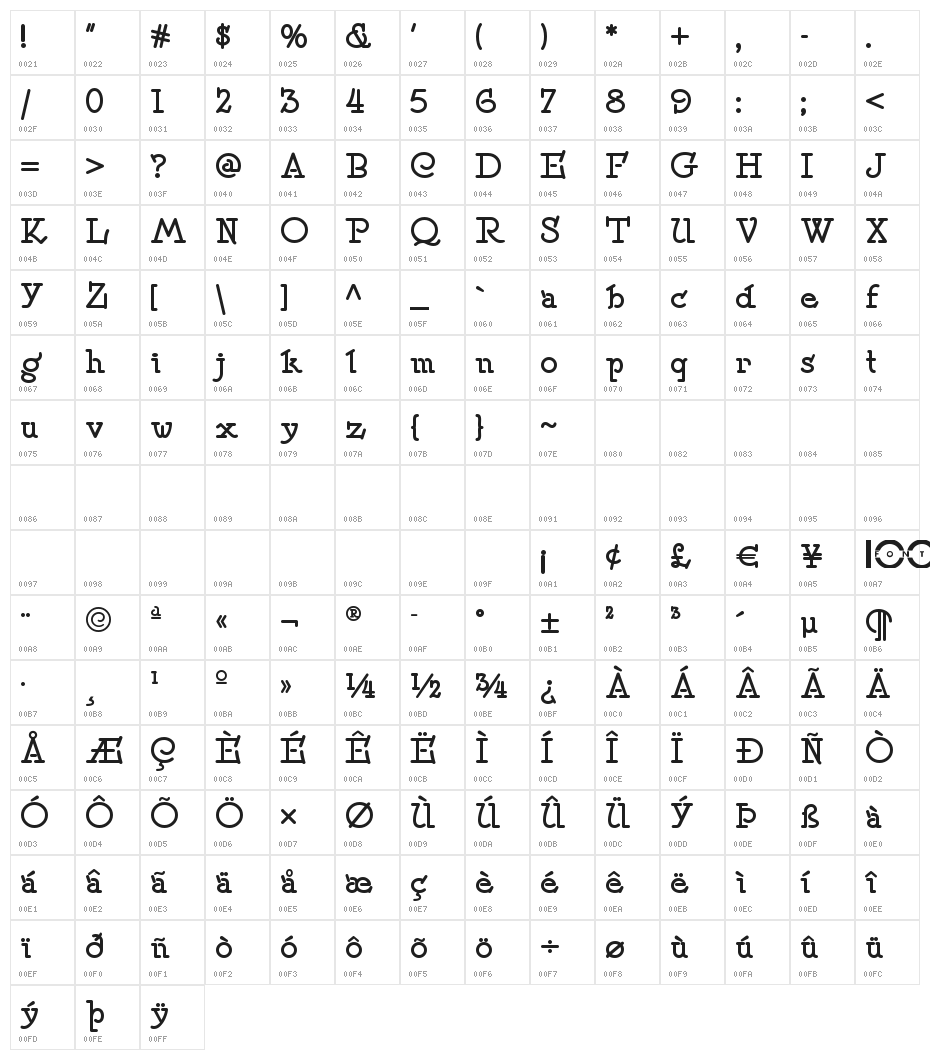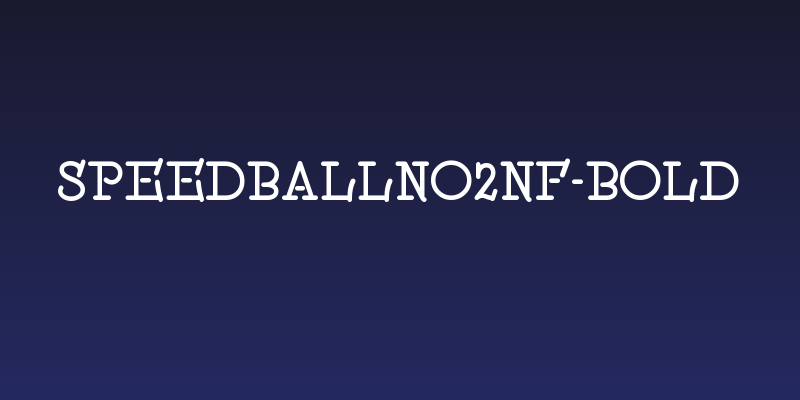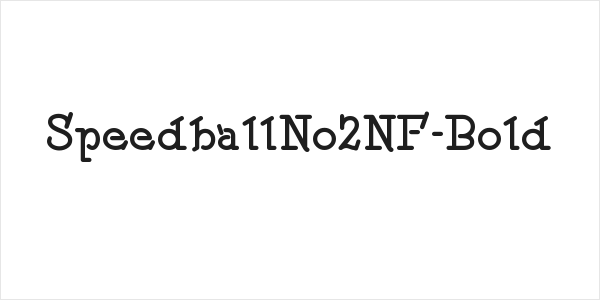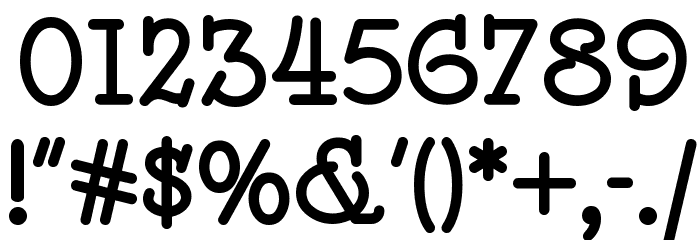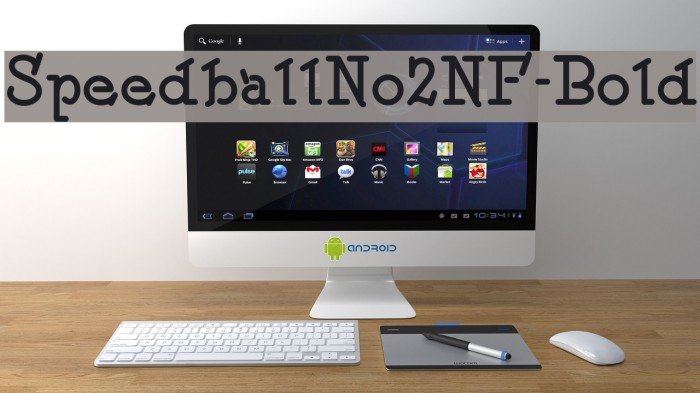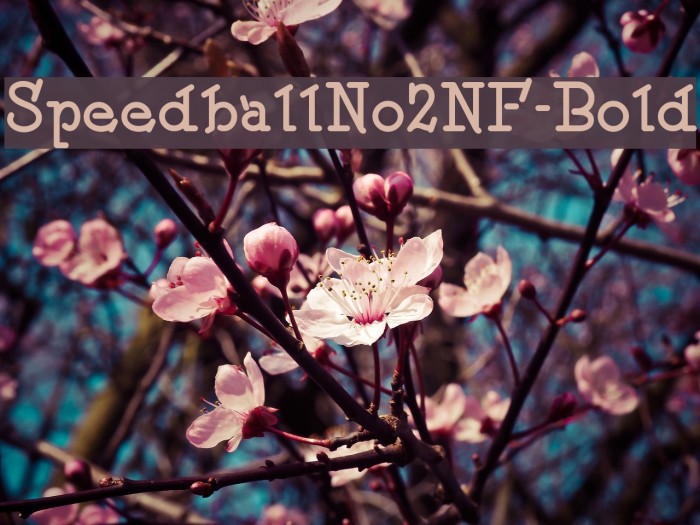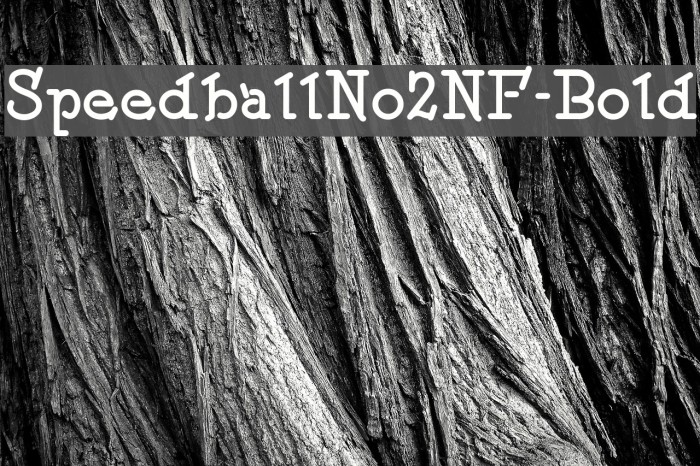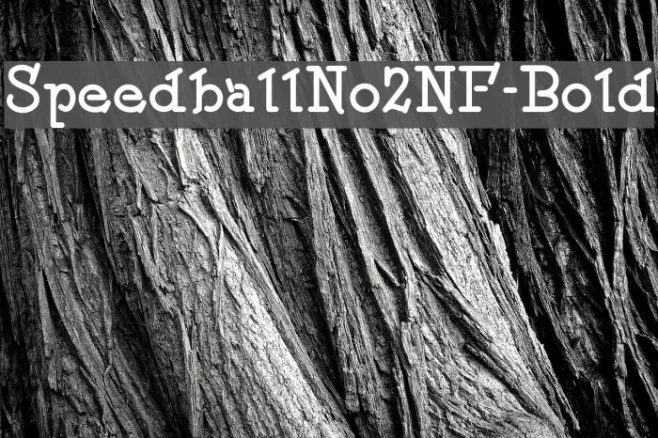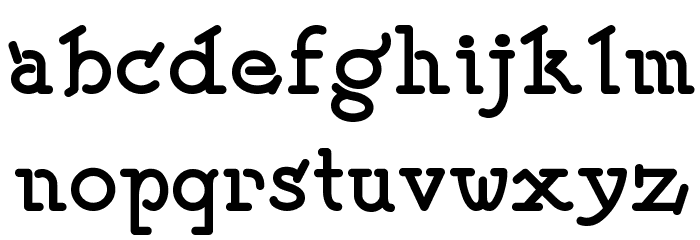
SpeedballNo2NF-Bold Font
SpeedballNo2NF-Bold Description
This font features a bold and playful design with a distinct retro flair. The characters are rounded with a slight serif touch, giving them a unique and approachable appearance. The uppercase letters are bold and prominent, while the lowercase letters maintain a consistent style with a slightly whimsical twist. The numerals are clear and easy to read, matching the overall boldness of the font. Special characters are well-integrated, maintaining the playful yet structured aesthetic. This font is ideal for projects that require a touch of nostalgia and creativity.